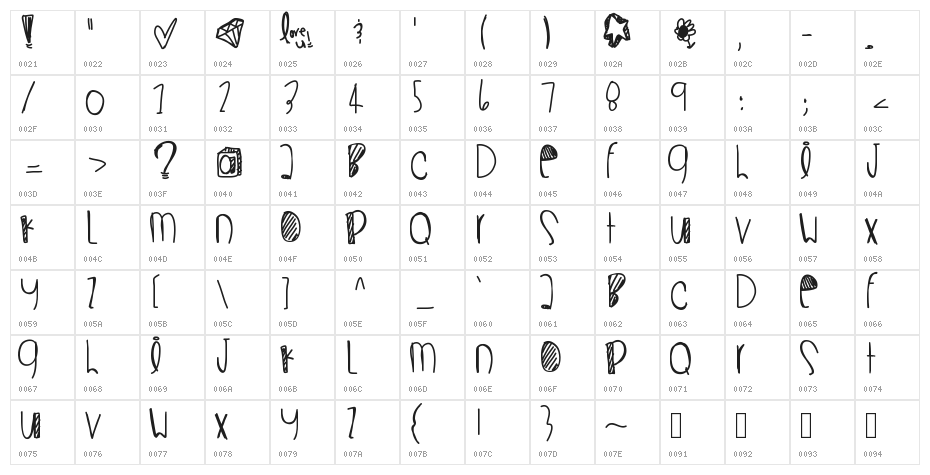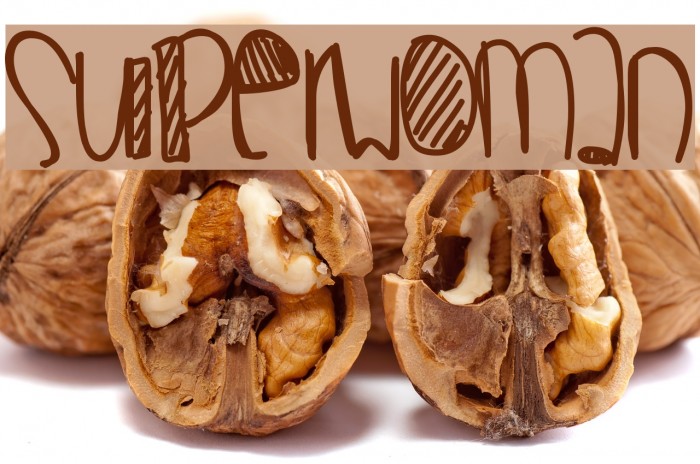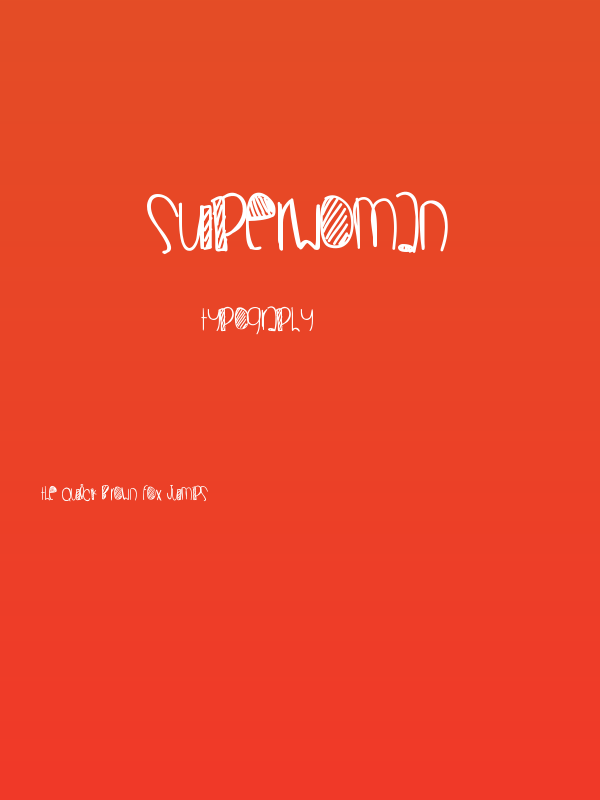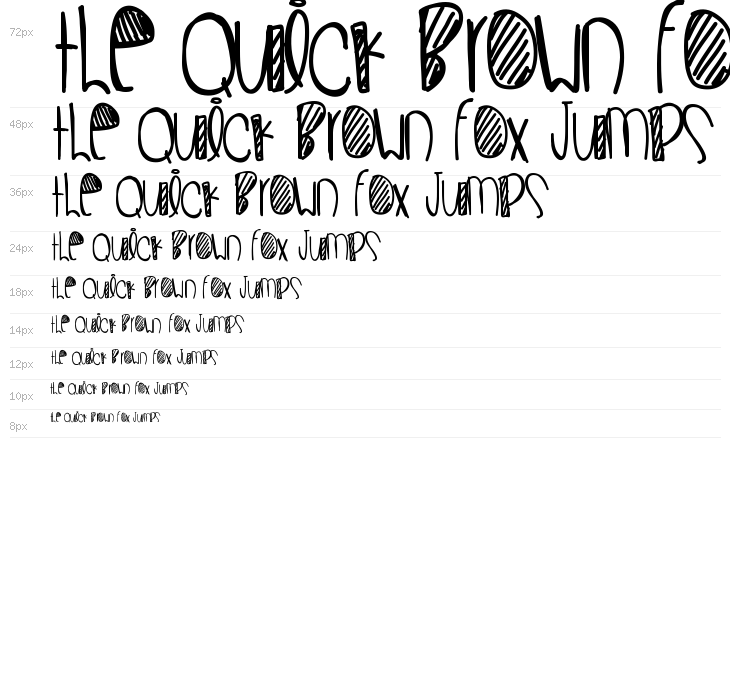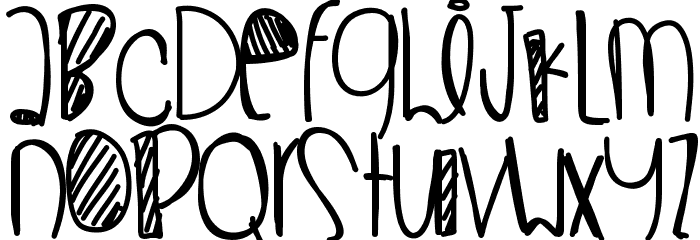
Superwoman Font
Superwoman Description
This playful and whimsical font features a handwritten style with a casual and friendly appearance. The letters are characterized by their uneven strokes and slightly irregular shapes, giving them a charming and approachable feel. The uppercase and lowercase letters maintain a consistent style, with some letters having unique embellishments, such as the striped pattern within certain characters. The numbers and special characters complement the overall style, adding to the font's versatility. This font's informal and lively nature makes it suitable for creative and fun projects.
| Proposed Projects | Ideal for greeting cards, children's books, playful branding, and social media graphics. |